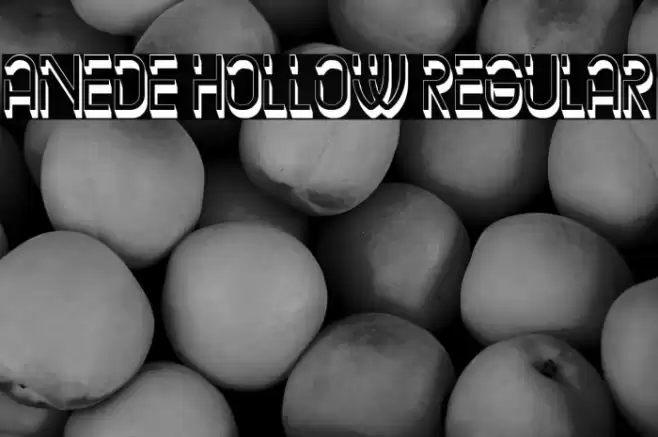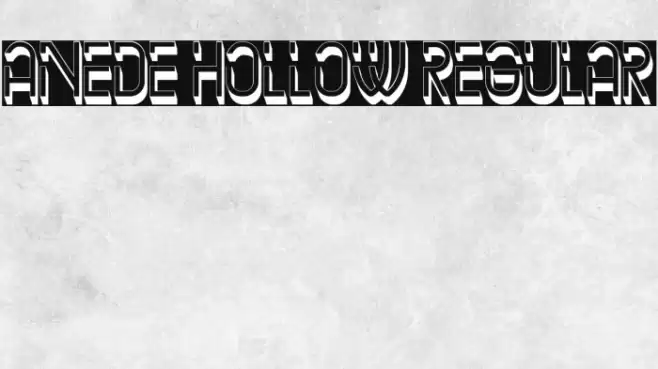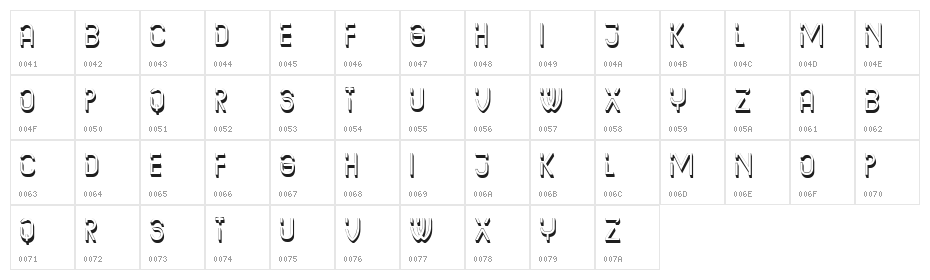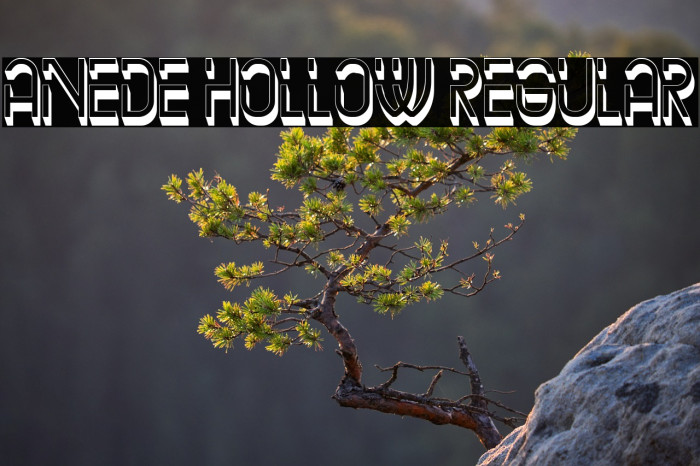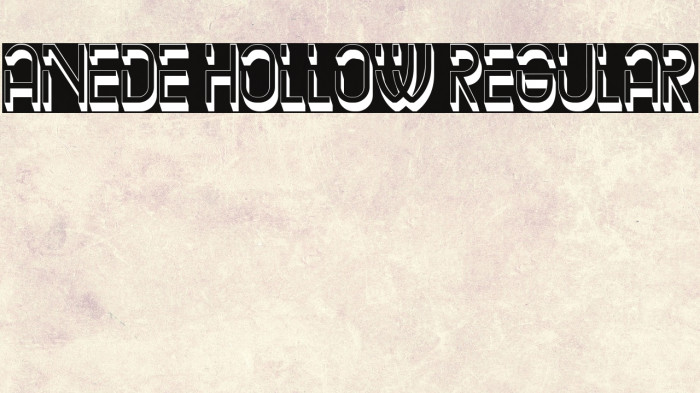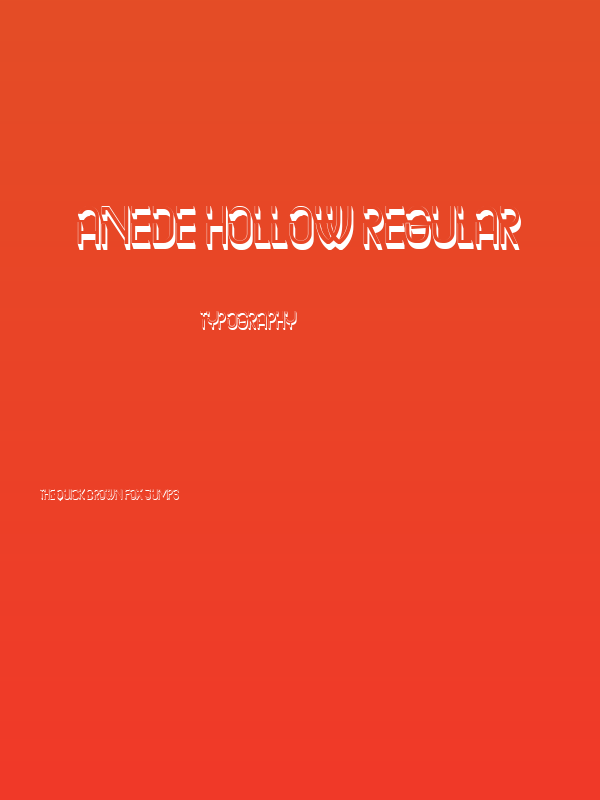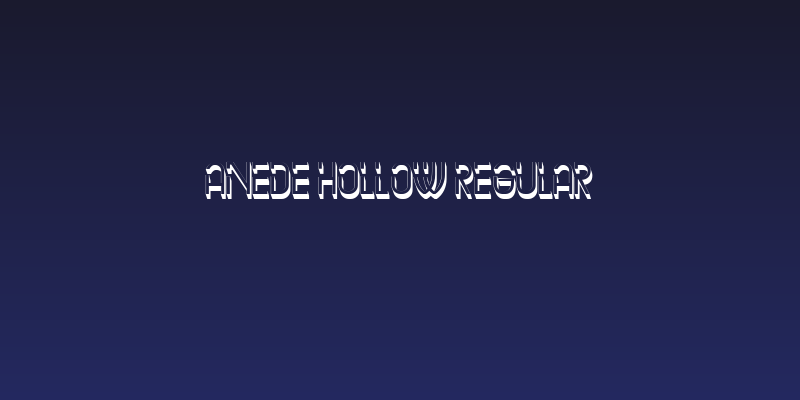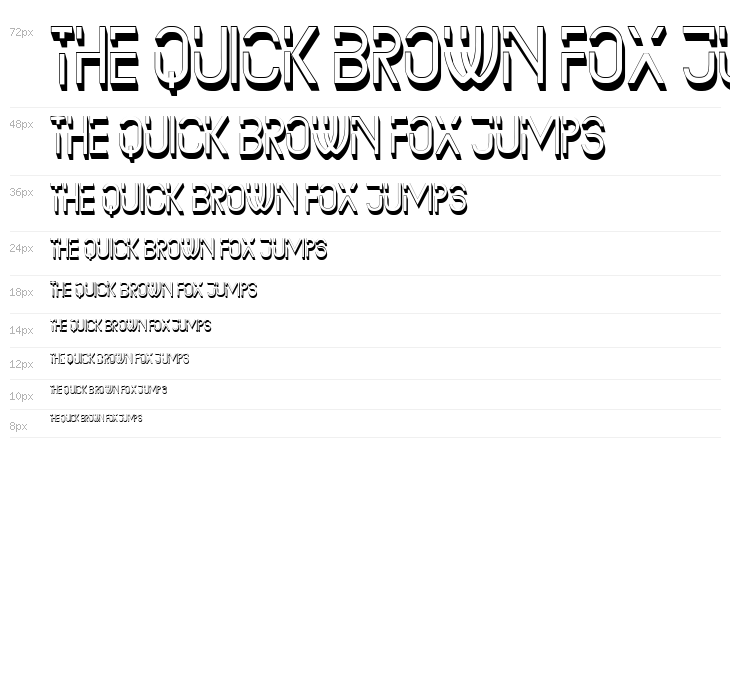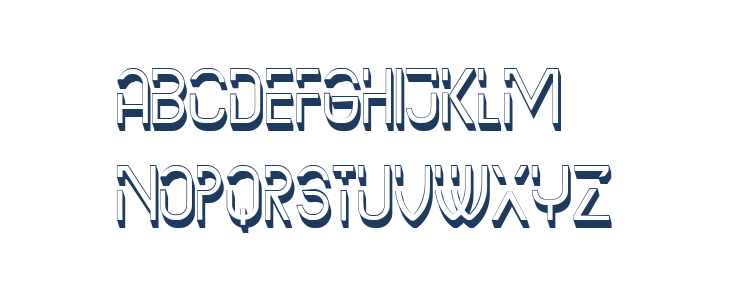
Anede Hollow Regular Font
Anede Hollow Regular Description
This font features a unique hollow design with a three-dimensional effect, giving it a bold and striking appearance. The uppercase letters are crafted with precision, showcasing a modern and futuristic style. The characters are outlined with a shadow that adds depth, making them stand out prominently. The geometric shapes and clean lines contribute to its contemporary look, making it ideal for attention-grabbing headlines or logos. The font maintains a consistent width and spacing, ensuring readability while retaining its decorative appeal.
A bold, hollow, 3D font with a modern and futuristic style from Uncategorized fonts.
- Proposed Projects: Ideal for branding, logos, posters, and headlines where a modern and eye-catching design is desired.